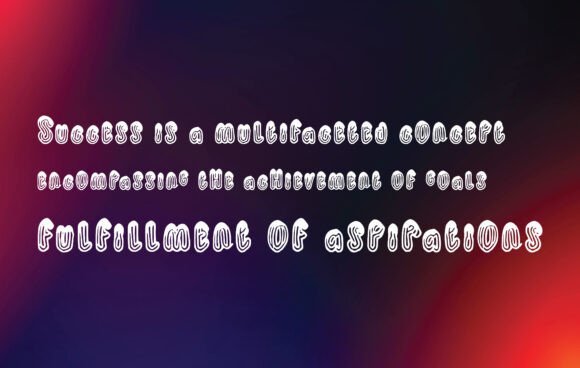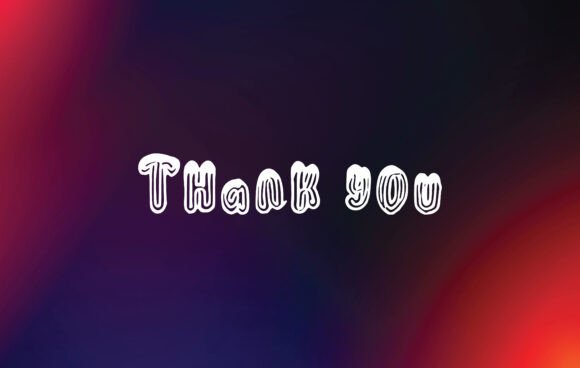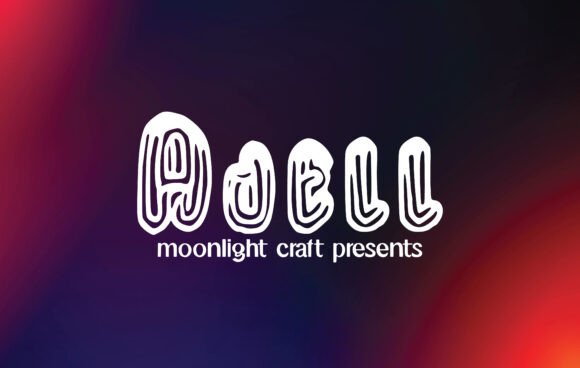
Discover the Beauty of Adell Font: Elevate Your Designs with this Lovely Handwritten Font
Are you a designer or crafter looking for a font that can take your creative ideas to the next level? Look no further than Adell Font, a stunning handwritten font that is sure to capture the attention of your audience. With its unique and elegant style, Adell Font is the perfect choice for creating eye-catching logos, branding, and quotes that will leave a lasting impression.
What Makes Adell Font So Special?
Adell Font is a beautifully crafted handwritten font that boasts a range of characteristics that set it apart from other fonts. Its flowing lines, delicate curves, and subtle imperfections give it a personal and organic feel that is sure to resonate with your audience. Whether you’re looking to create a logo, branding materials, or social media graphics, Adell Font is the perfect choice for adding a touch of elegance and sophistication.
The Benefits of Using Adell Font
So why choose Adell Font for your design projects? Here are just a few benefits of using this lovely handwritten font:
- Elegant and Sophisticated: Adell Font has a unique and elegant style that is sure to add a touch of sophistication to your designs.
- Versatile: Adell Font is perfect for a range of design projects, from logos and branding to quotes and social media graphics.
- Easy to Read: Despite its elegant style, Adell Font is easy to read and understand, making it perfect for use in a range of contexts.
- Unique: Adell Font has a distinctive style that sets it apart from other fonts, ensuring that your designs will stand out from the crowd.
How to Use Adell Font in Your Designs
Using Adell Font in your designs is easy. Here are a few tips to get you started:
- Pair it with Other Fonts: Adell Font pairs well with a range of other fonts, so don’t be afraid to experiment and find the perfect combination for your design.
- Use it for Headings and Titles: Adell Font is perfect for use in headings and titles, where its elegant style can really shine.
- Add it to Your Branding: Adell Font is a great choice for branding materials, such as logos, business cards, and letterheads.
- Experiment with Colors: Adell Font looks great in a range of colors, so don’t be afraid to experiment and find the perfect hue for your design.
Who Can Benefit from Using Adell Font?
Adell Font is perfect for a range of designers and crafters, including:
- Graphic Designers: Adell Font is a great choice for graphic designers looking to add a touch of elegance and sophistication to their designs.
- Logos and Branding Specialists: Adell Font is perfect for use in logos and branding materials, where its unique style can really shine.
- Social Media Managers: Adell Font is a great choice for social media managers looking to create eye-catching graphics and quotes.
- Crafters and Makers: Adell Font is also perfect for crafters and makers looking to add a personal touch to their products and packaging.
In conclusion, Adell Font is a lovely and beautiful handwritten font that has the potential to take your creative ideas to the highest level. With its elegant style, versatility, and ease of use, Adell Font is the perfect choice for designers and crafters looking to create eye-catching logos, branding, and quotes. So why not give Adell Font a try and see the difference it can make in your designs?
With Adell Font, you can:
- Create stunning logos and branding materials that will leave a lasting impression.
- Add a touch of elegance and sophistication to your designs.
- Stand out from the crowd with a unique and distinctive font.